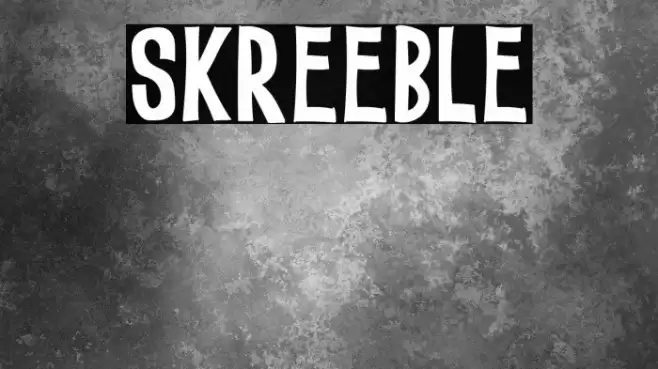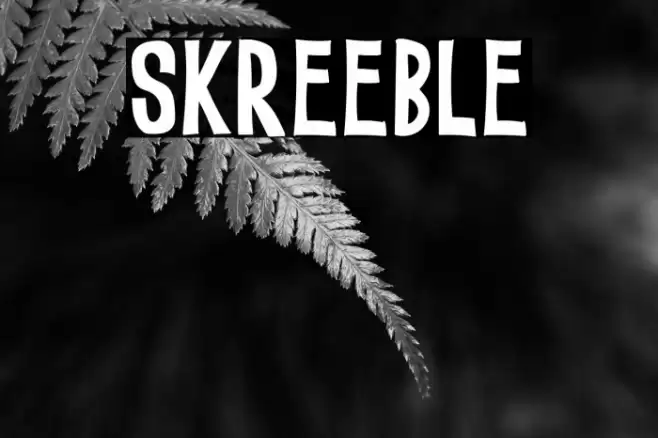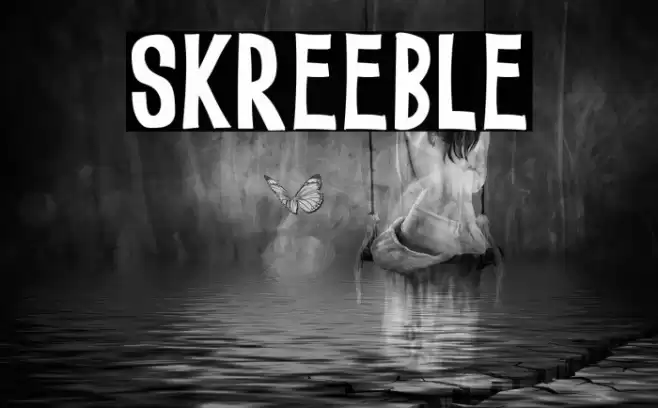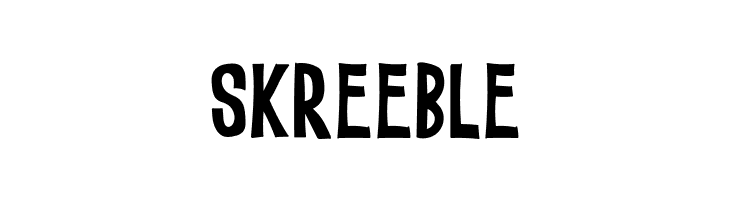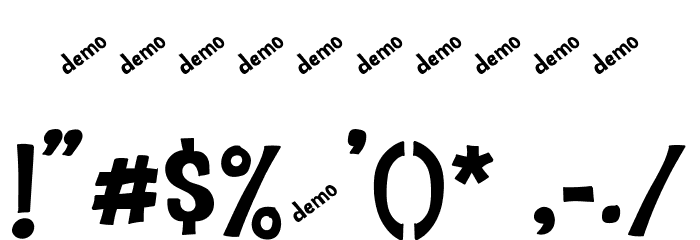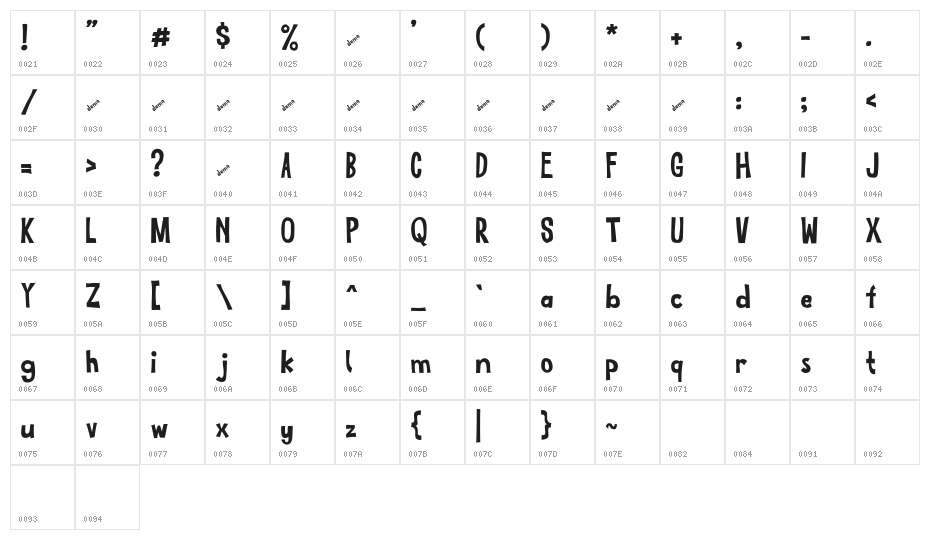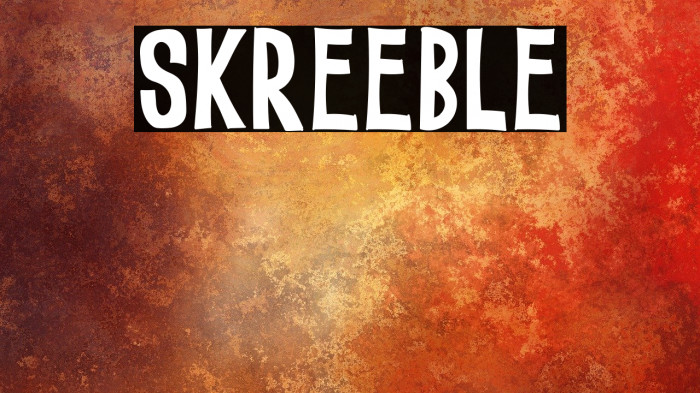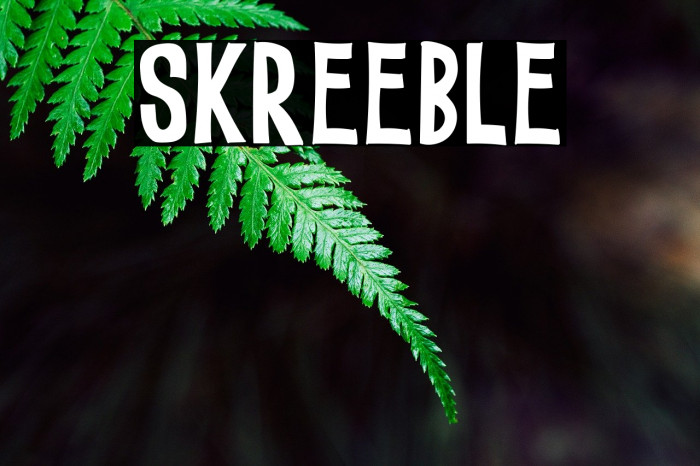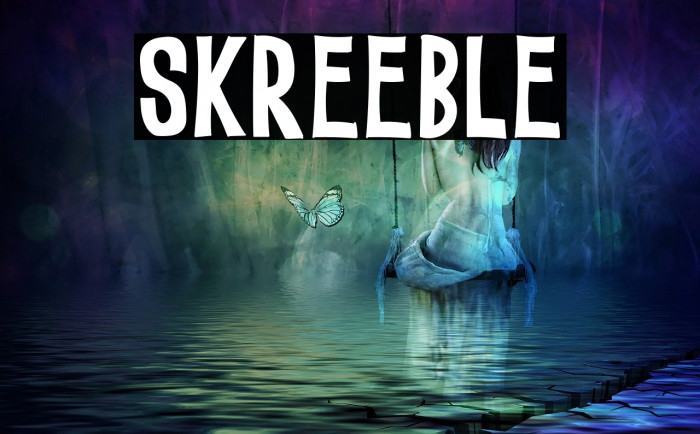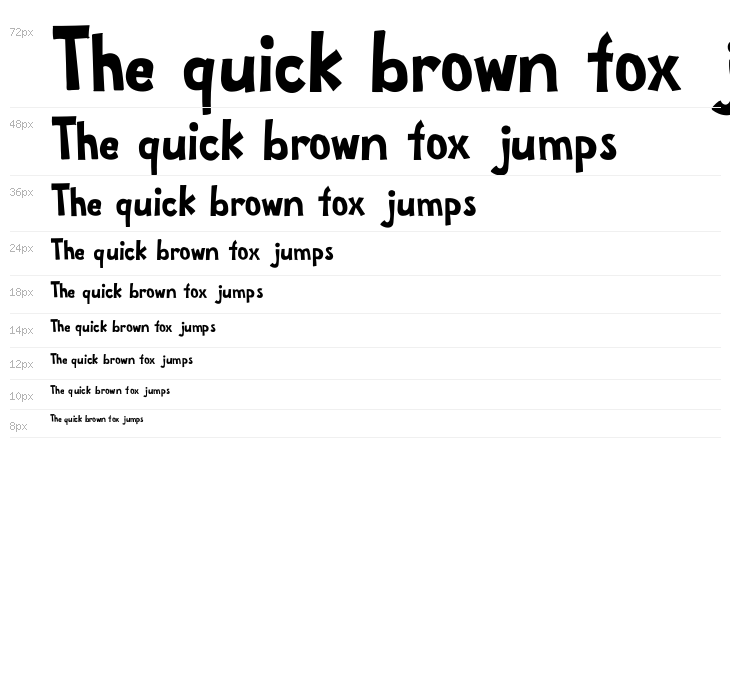
SKREEBLE Font
SKREEBLE Description
This font features a playful and quirky design, characterized by its irregular and slightly wavy letterforms. The uppercase letters are bold and slightly condensed, giving them a strong presence, while the lowercase letters maintain a consistent style with a touch of whimsy. The font includes a full set of numerals and a variety of special characters, each maintaining the same playful aesthetic. The strokes are consistent in weight, providing a uniform appearance across all characters. This font is ideal for projects that require a fun and informal touch, such as children's books, playful branding, or creative posters.
A playful and quirky font with irregular, wavy letterforms from Cartoon fonts.
- Proposed Projects: Children's books, playful branding, creative posters, informal invitations.
- Overall Style: Playful, Quirky, Informal